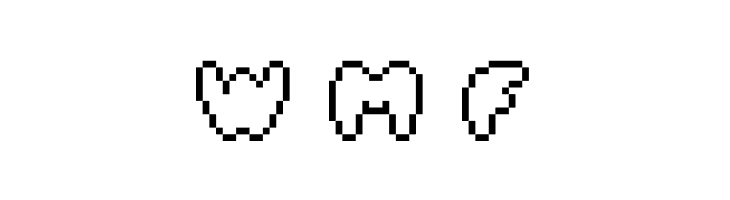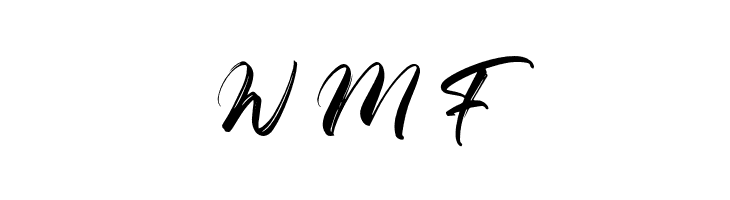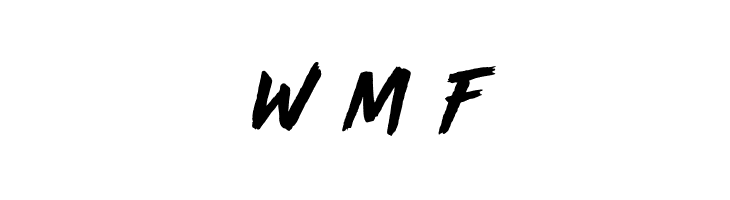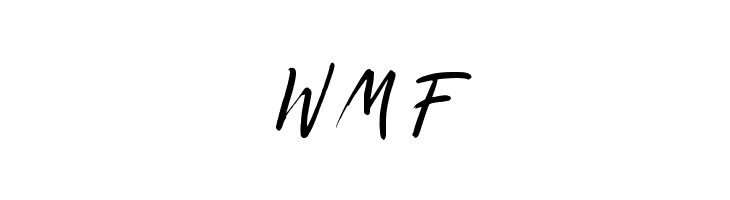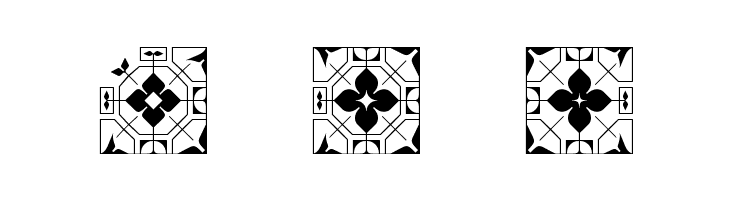
A bold, italic font with a modern and dynamic style.
A modern, geometric sans-serif font with excellent readability.
A modern outline font with geometric and structured letterforms.
A modern, italicized font with sleek curves and a dynamic style.
A bold, modern sans-serif font with clean lines and excellent readability.
A geometric, double-line font with a modern and dimensional style.
A playful, pixelated bubble font with a retro, video game-inspired aesthetic.
A dynamic and expressive handwritten font with fluid strokes.
A dynamic, brush-style font with fluid strokes and artistic flair.
A clean, modern monospaced typeface with uniform character width and height.
A clean, minimalist font with thin, uniform lines and a modern, elegant appearance.
A bold, dynamic brush script font with energetic strokes and a hand-painted look.
A bold, expressive handwritten font with fluid, cursive letterforms.
A playful, hand-drawn font with bold, uneven strokes and a whimsical style.
Intricate geometric patterns with symmetrical and ornate designs.
The image contains decorative patterns, not a valid font.
Ornamental geometric borders with pointed, Islamic-inspired edges.
A bold, pixelated font with a retro digital style.
A geometric, modern font with clean lines and a structured appearance.
An ornate, decorative font with bold, framed characters and intricate patterns.
A bold, italic font with a modern and dynamic style.
A playful, hand-drawn font with irregular strokes and a lively appearance.
A modern, dotted font with a pixelated, digital aesthetic.
A playful, rounded, and handwritten-style font with a friendly vibe.
A decorative, medieval-inspired font with characters framed in scroll-like designs.
A bold, geometric font with rounded edges and a modern feel.